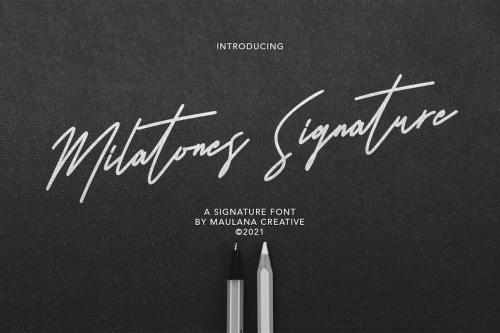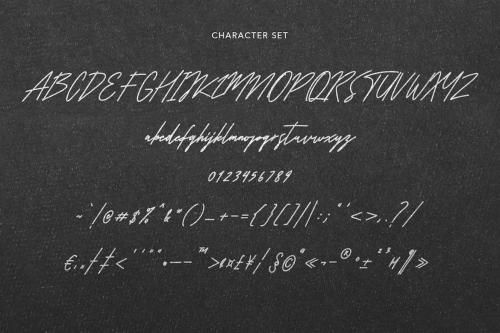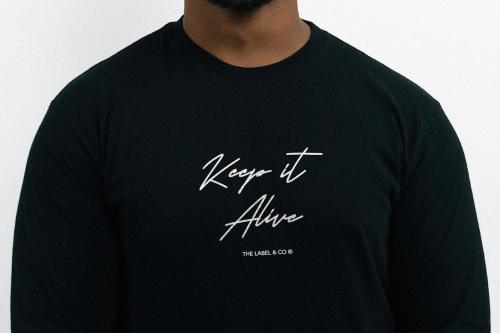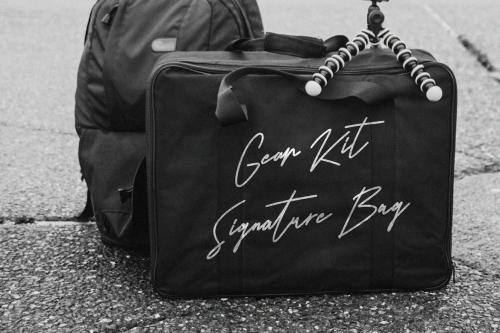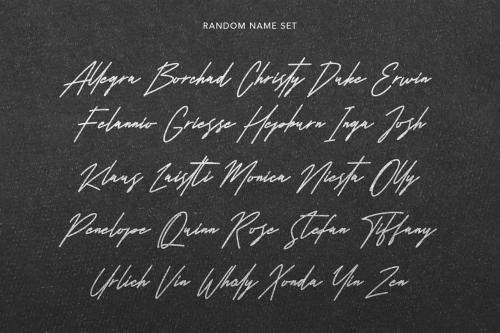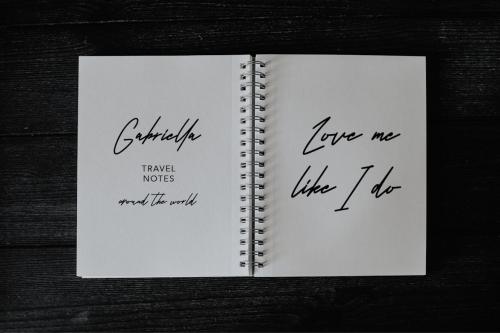
米拉托涅斯签名字体
Milatones Signature Font
Milatones is casual signature font, with clean thin mono-line stroke, super slanted, condensed and fun character. It has Opentype features ligatures of character and lowercase alternate "t", To give you an extra creative work. Milatones font support multilingual more than 100+ language. This font is good for logo design, Social media, Movie Titles, Books Titles, a short text even a long text letter and good for your secondary text font with sans or serif. Make a stunning work with Milatones font.